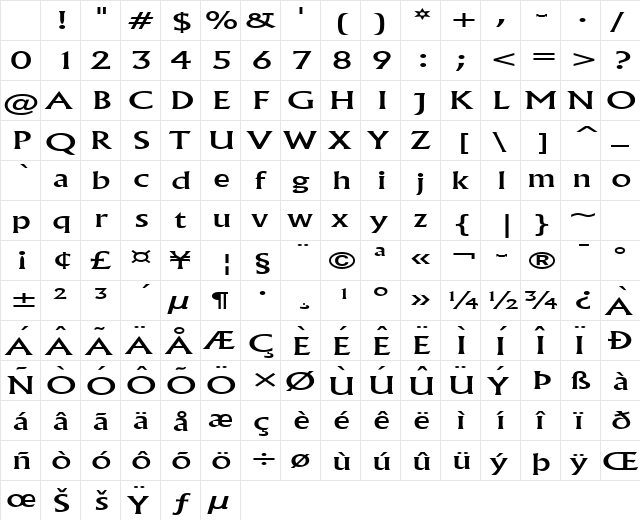
Complete Flair Extended Normal glyph index. Displaying only characters natively supported by Flair Extended Normal font.
Flair Extended is a composed and adaptable typeface that performs quietly and consistently across a wide range of design contexts.